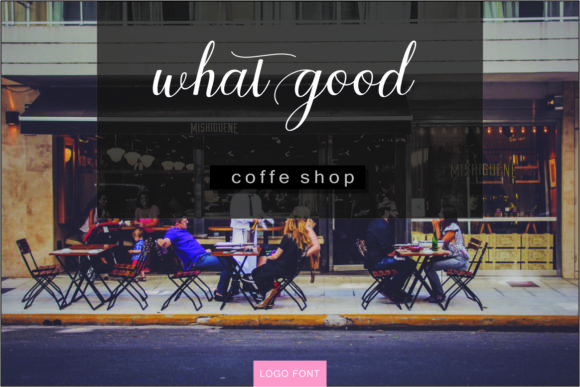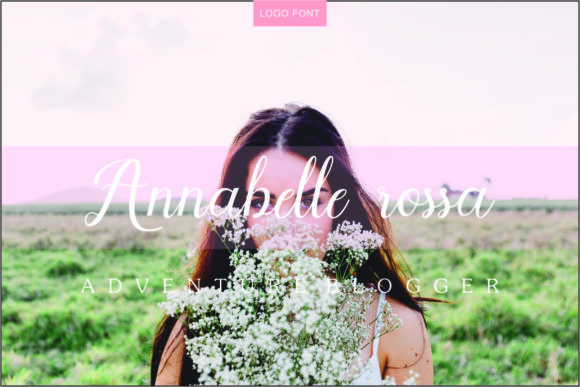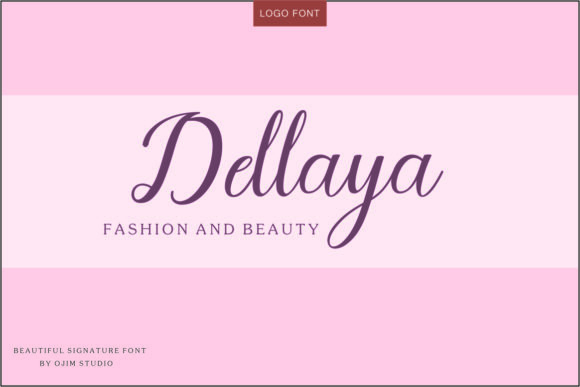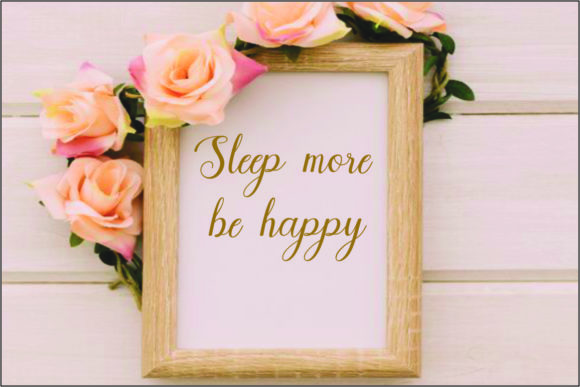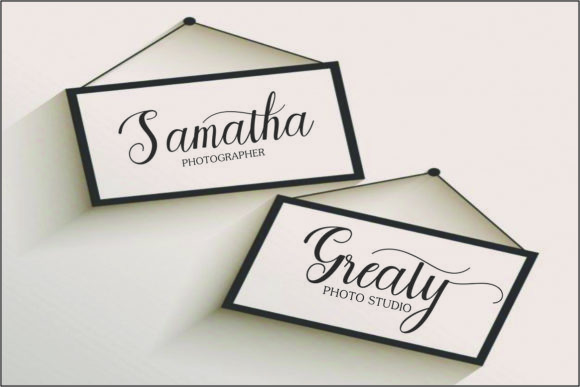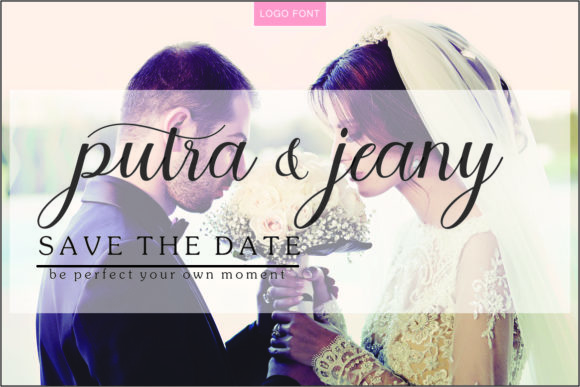
Introduction to Melayu Script Font Font
Fonts play a crucial role in design, and the Melayu Script Font font is a typeface that brings both character and versatility to any project. Whether you’re working on a branding project, a website, or a print design, the Melayu Script Font font offers a unique style that can elevate your work.
The Melayu is a modern script font.
Every letter has been carefully crafted to make your text look beautiful with an elongated connection model Itβs modern and elegant style is perfect for wedding invitations, greeting cards, posters, business cards, quotes, blog headers, branding, logos, fashion, clothing, letters, stationery, and much more.
Key Features of Melayu Script Font Font
Why Choose Melayu Script Font Font?
The Melayu Script Font font is more than just a typeface β it’s a design tool that helps you communicate your message with style and clarity. Its unique character set and versatile design make it suitable for a wide range of applications, from elegant invitations to bold headlines.
With its carefully crafted letterforms and balanced proportions, the Melayu Script Font font ensures readability and visual appeal across all mediums.
What makes Melayu Script Font font special?
The Melayu Script Font font stands out with its unique design, exceptional readability, and versatility across various design applications.